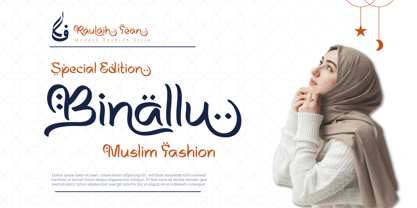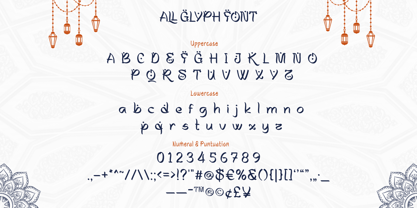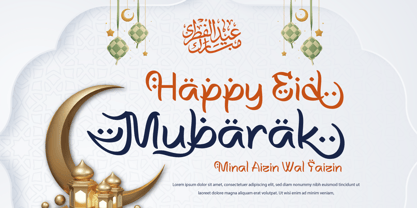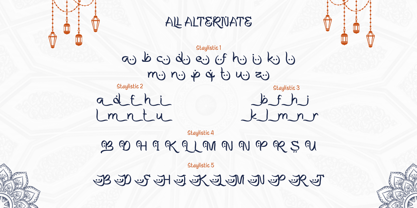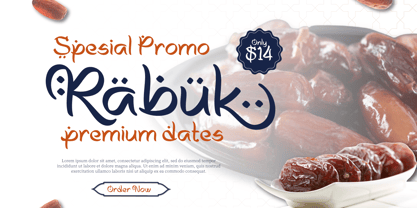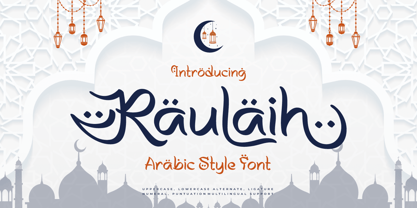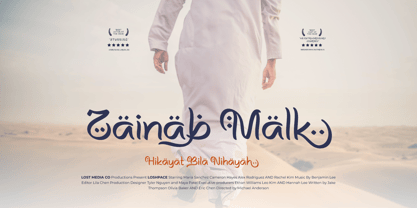
Raulaih
by Trabas Kriya
The Raulaih Font Family was designed by Murozakul Akhsan and published by Trabas Kriya. Raulaih contains 1 styles. More about this family
Raulaih - Arabic Style Font is a typeface inspired by traditional Arabic calligraphy, featuring graceful curves and simple lines. Raulaih is ideal for projects that want an elegant cultural touch, such as branding, event invitations, posters, and editorial layouts. This font evokes the timeless beauty of Arabic script, adding depth and a sense of heritage to your designs.
Bring a unique Middle Eastern aesthetic to your creations with Raulaih and enhance it with its cultural elegance.
Designers: Murozakul Akhsan
Foundry: Trabas Kriya